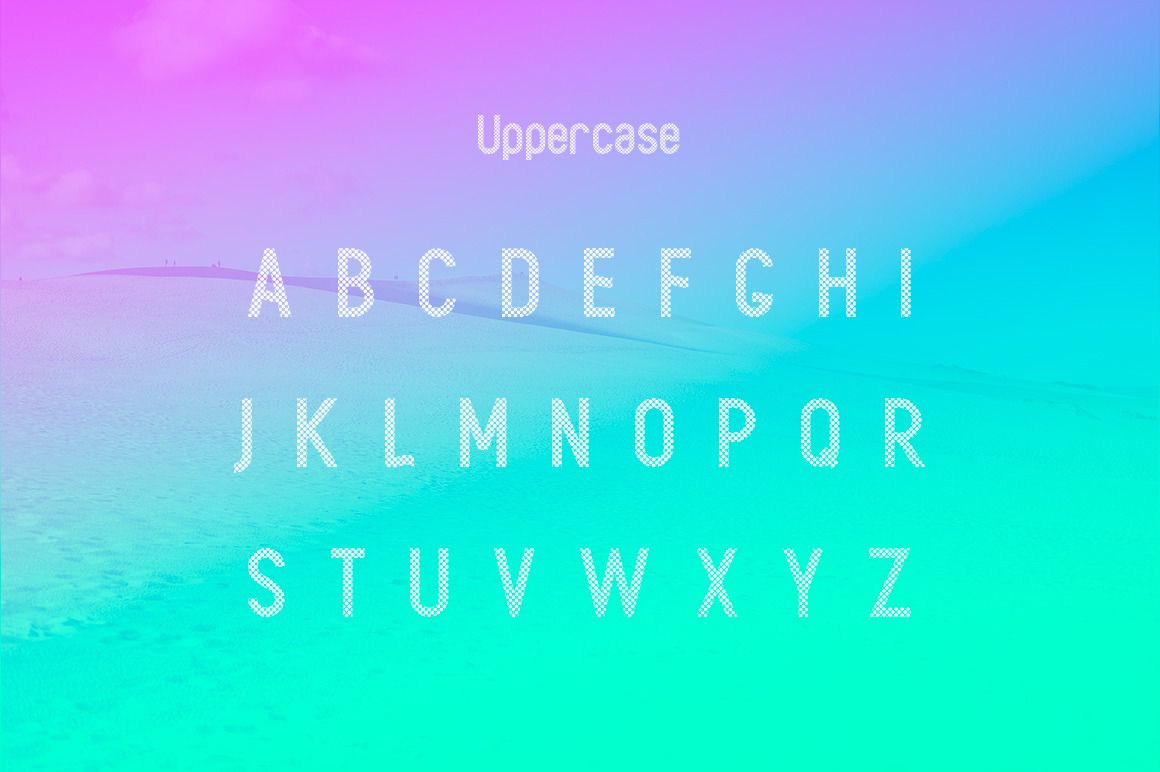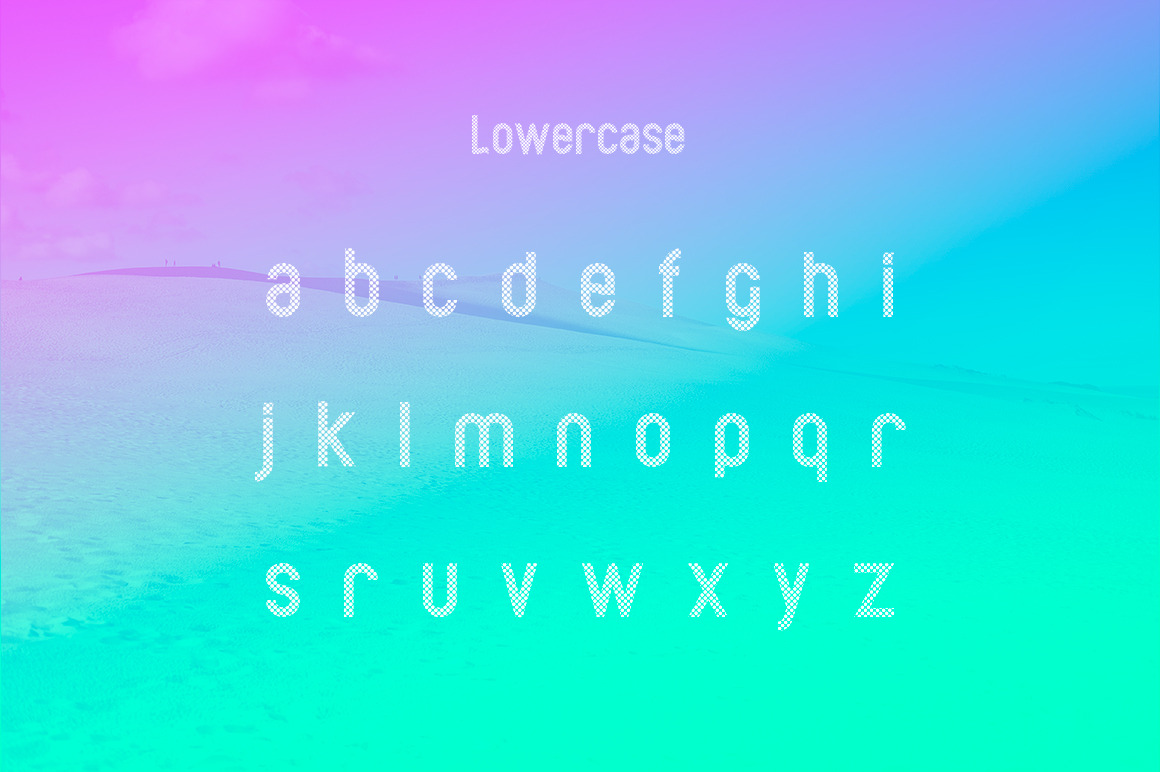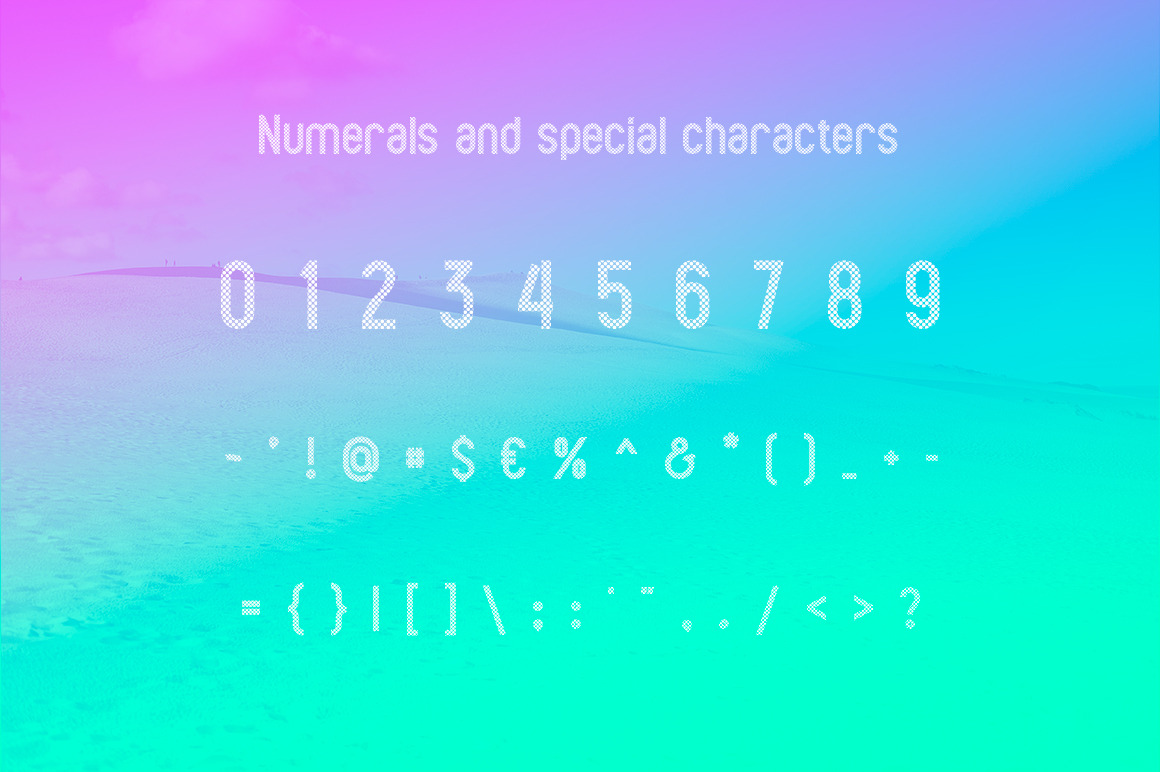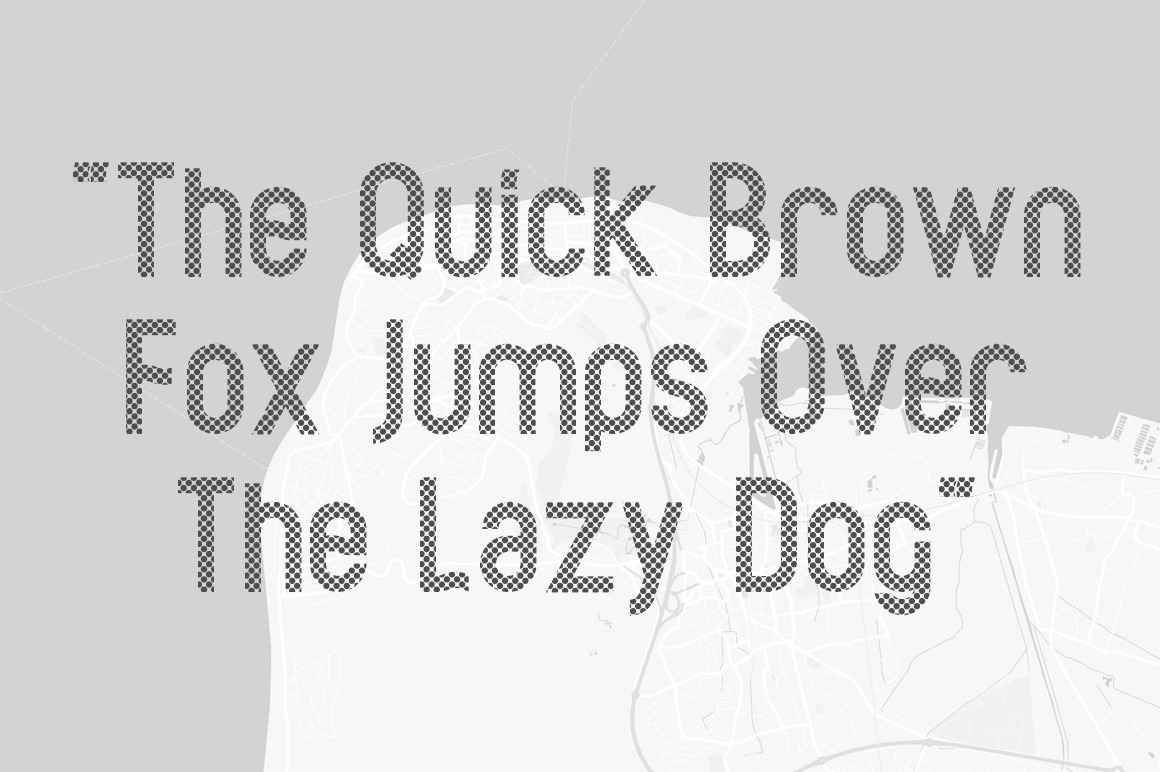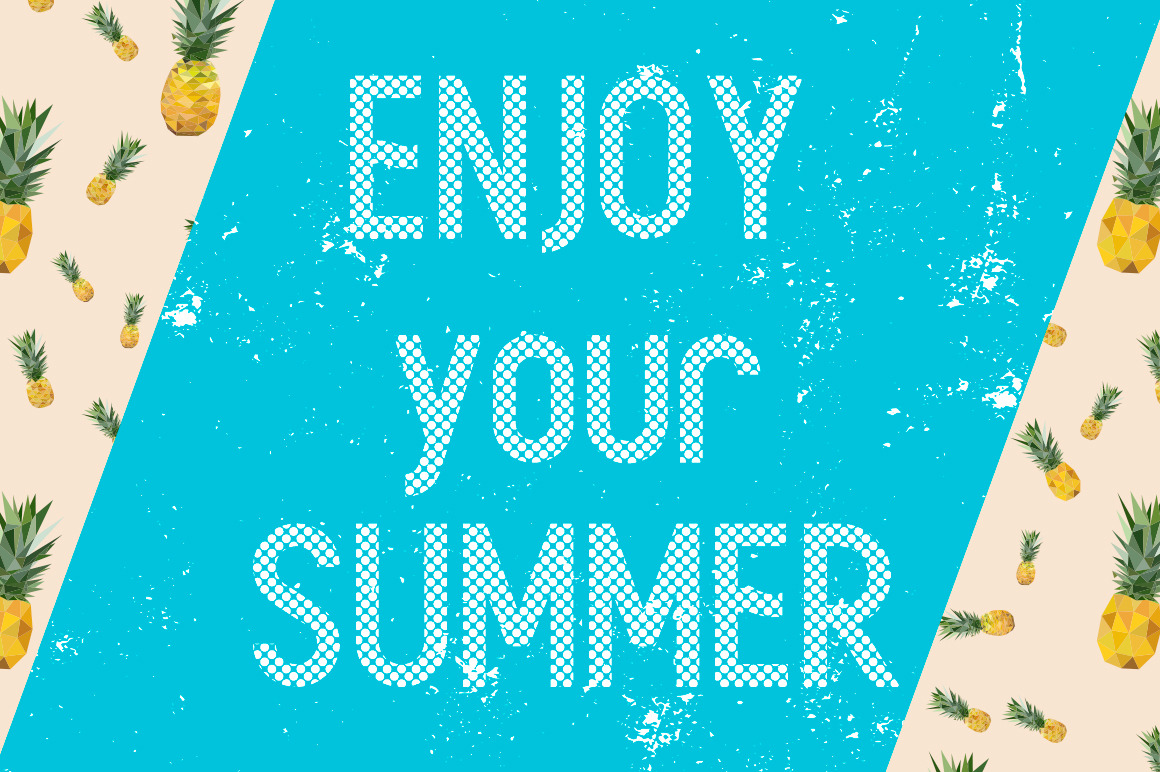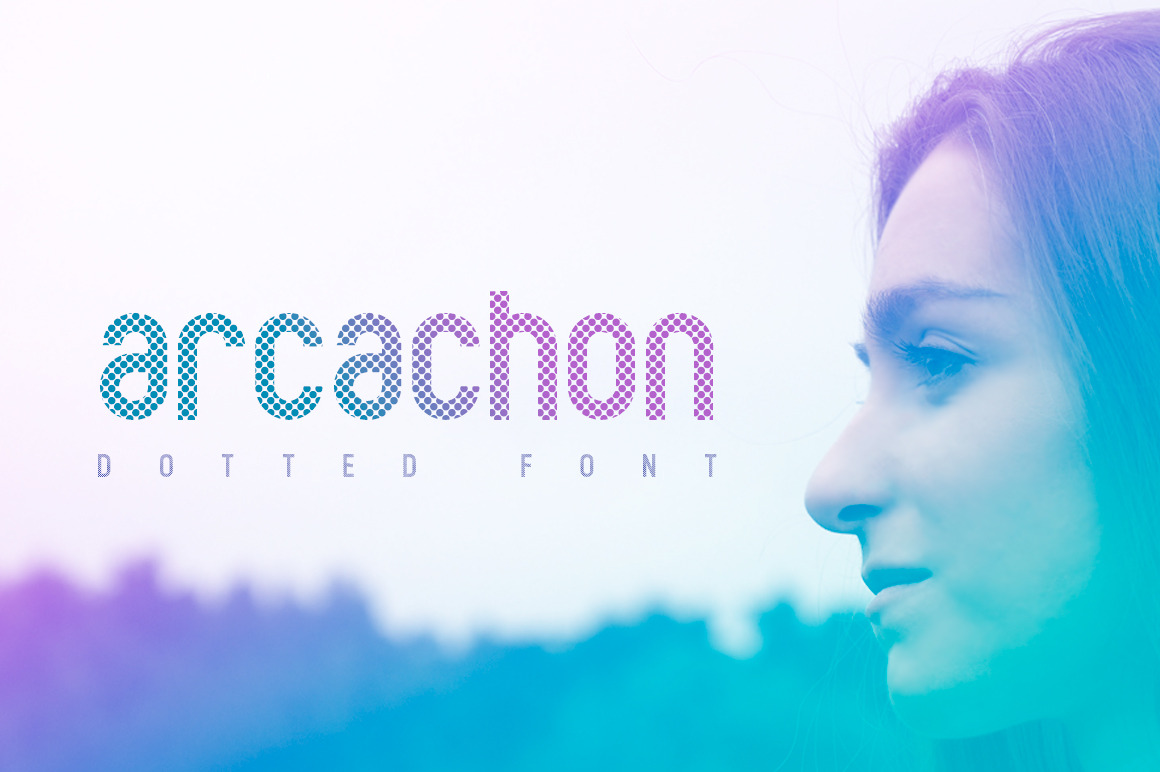
Arcachon Dotted Font
Arcachon Dotted Font is perfect for creative branding projects, artistic headlines, playful children's designs, innovative packaging solutions, unique social media graphics, experimental poster art, whimsical greeting cards, creative portfolio layouts, artistic event materials, and distinctive editorial applications.
What makes Arcachon Dotted Font so exciting is its distinctive dotted texture that creates visual intrigue while maintaining exceptional readability and contemporary appeal. This innovative typeface embodies creative experimentation and artistic sophistication, delivering typography that captures attention through unique visual texture and memorable character that stands apart from conventional fonts.
The Arcachon Dotted Font family includes light, regular, medium, and bold weights, featuring unique dotted variations, creative texture options, and artistic design elements that provide designers with comprehensive tools for creating distinctive and memorable typography that celebrates creative innovation and visual experimentation.
Discover textural innovation with Arcachon Dotted Font Free Download, a creatively crafted typeface that brings unique visual texture and artistic sophistication to contemporary design projects. This exceptional font embodies the perfect fusion of experimental creativity and professional quality, making it an ideal choice for brands that celebrate artistic innovation and distinctive visual communication.
The innovatively textured letterforms of Arcachon Dotted Font showcase creative elegance with distinctive character that creates instant visual interest and memorable brand recognition. Each character displays careful attention to maintaining the artistic texture that defines creative innovation while ensuring contemporary readability and professional versatility. The font's unique dotted construction and creative spacing contribute to its artistic appearance and experimental appeal.
Creative agencies and artistic brands consistently choose Arcachon Dotted Font for projects requiring distinctive texture and innovative presentation. The comprehensive character set includes uppercase and lowercase letters, numerals, extensive punctuation, international accents, and creative decorative elements that provide complete support for artistic branding applications and experimental design compositions.
The creative versatility of Arcachon Dotted Font ensures exceptional performance across both traditional print and modern digital platforms. Whether developing artistic brand identities, creating innovative marketing campaigns, or designing experimental graphic materials, this remarkable typeface delivers consistent creativity that resonates with audiences appreciating artistic innovation and distinctive visual expression.
Transform your most creative projects with Arcachon Dotted Font Free Download. This extraordinary typeface brings textural innovation and artistic sophistication to typography, making it the essential choice for designers who create experiences that celebrate creative experimentation and the distinctive beauty of innovative typographic design.